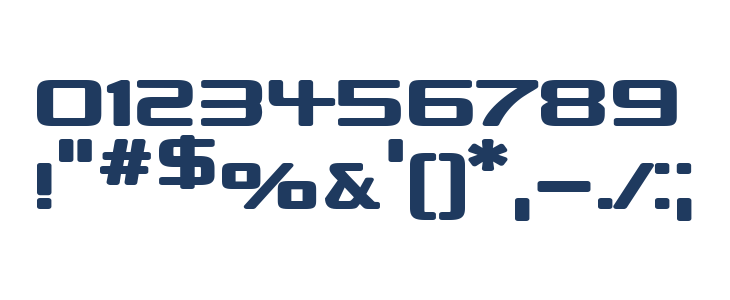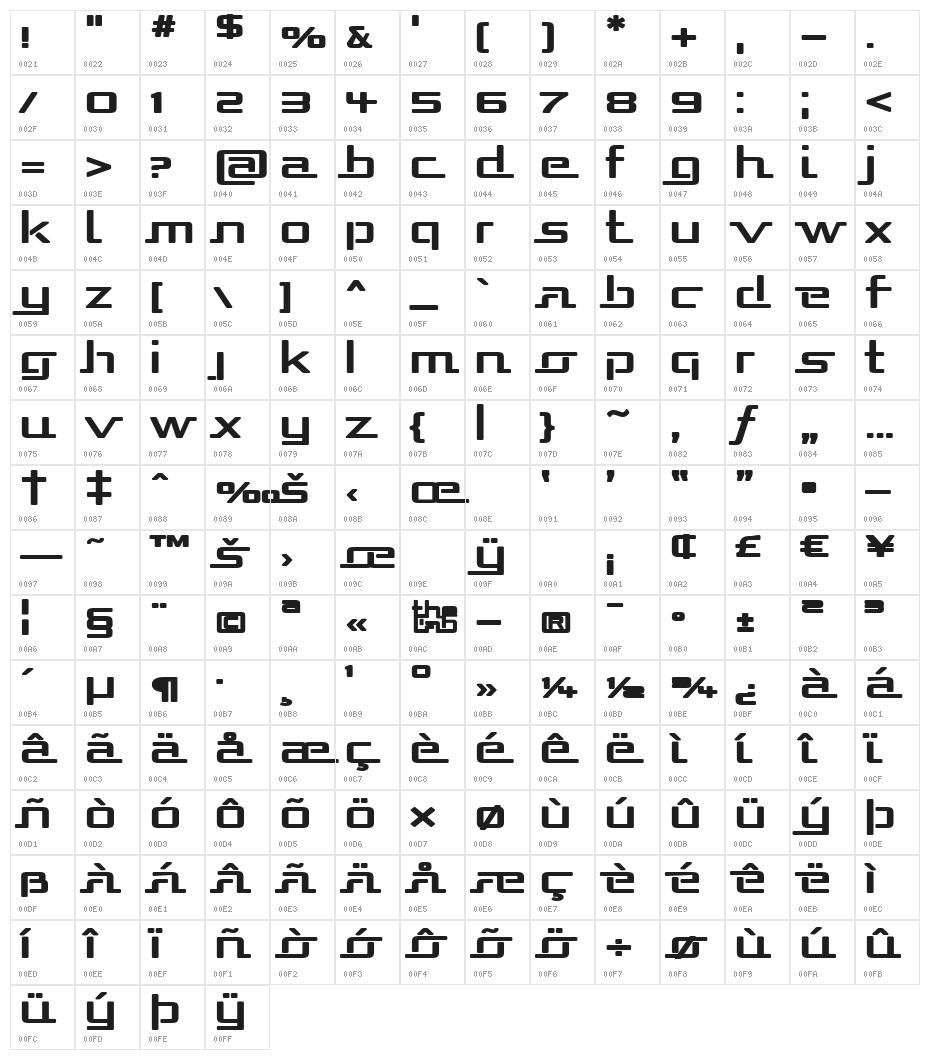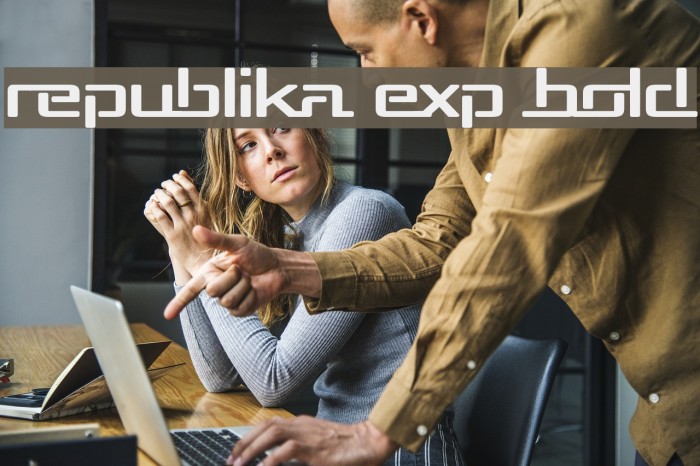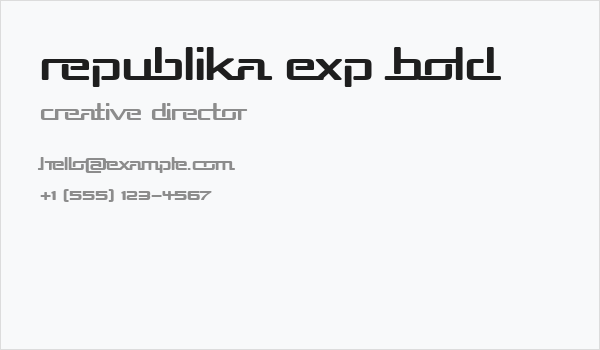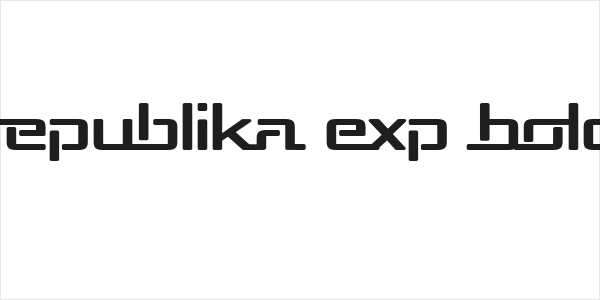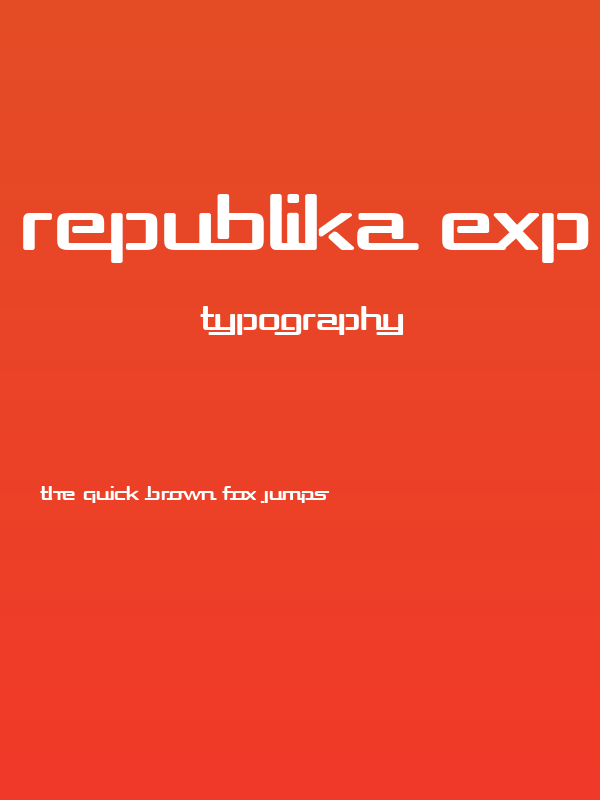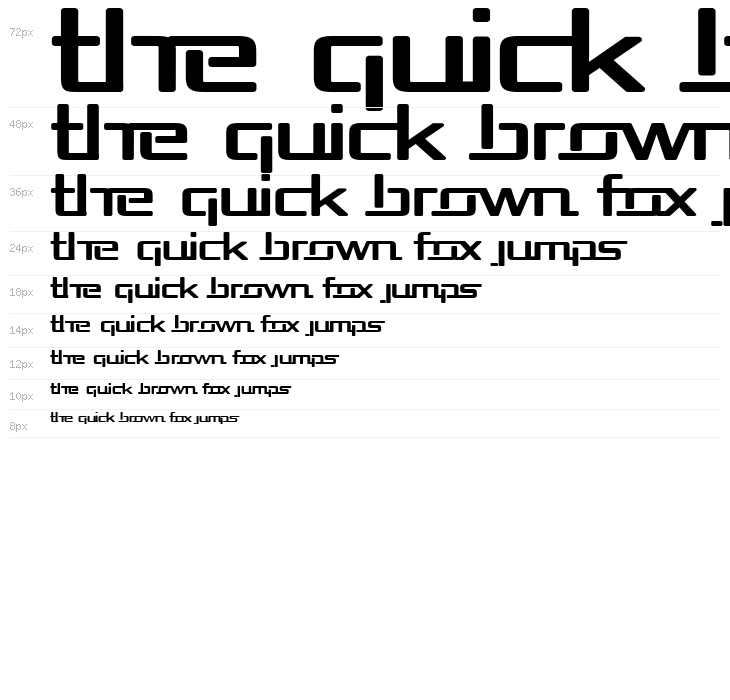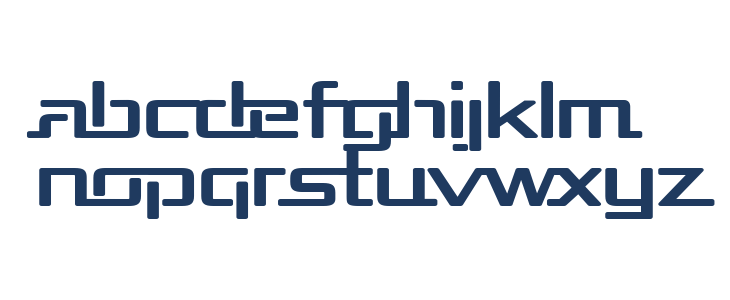
Republika Exp Bold Font
This font features a bold and modern design with a geometric and futuristic aesthetic. The characters are structured with clean, straight lines and rounded edges, giving it a sleek and contemporary look. The uppercase and lowercase letters maintain a consistent height, contributing to a uniform appearance. The numerals and special characters are designed to match the overall style, ensuring a cohesive visual experience. This font is ideal for projects that require a strong, impactful presence with a touch of modernity.
Use CaseHeadlines, Logos, Digital Interfaces
Proposed ProjectsIdeal for technology branding, modern advertising, futuristic posters, and digital interfaces.